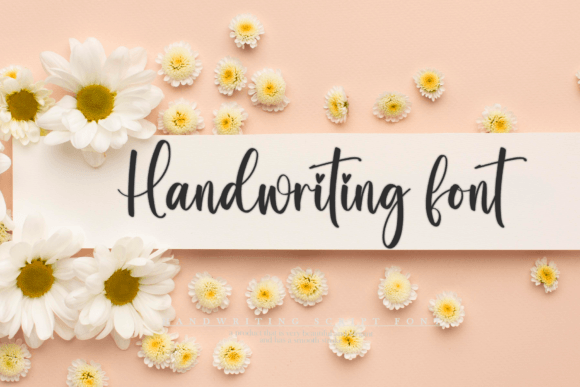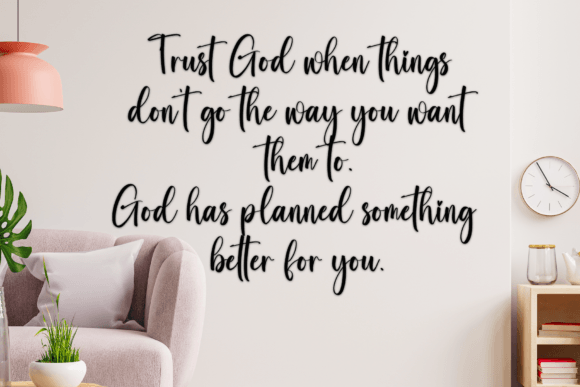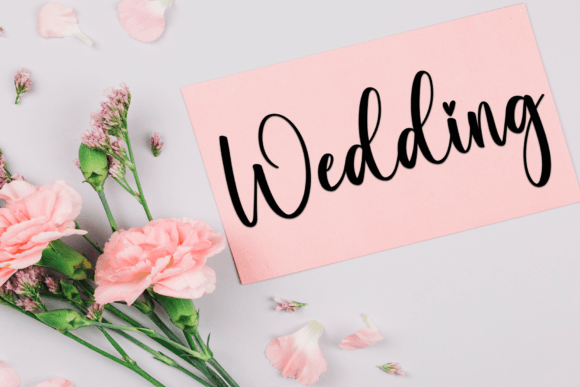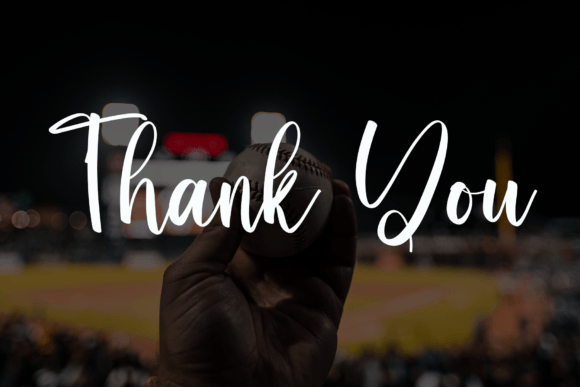
Outside Font
Outside is a cute and casual handwritten font with an incredibly friendly feel. Whether you’re looking for fonts for Instagram or calligraphy scripts for DIY projects, this font will turn any creative idea into a true piece of art!